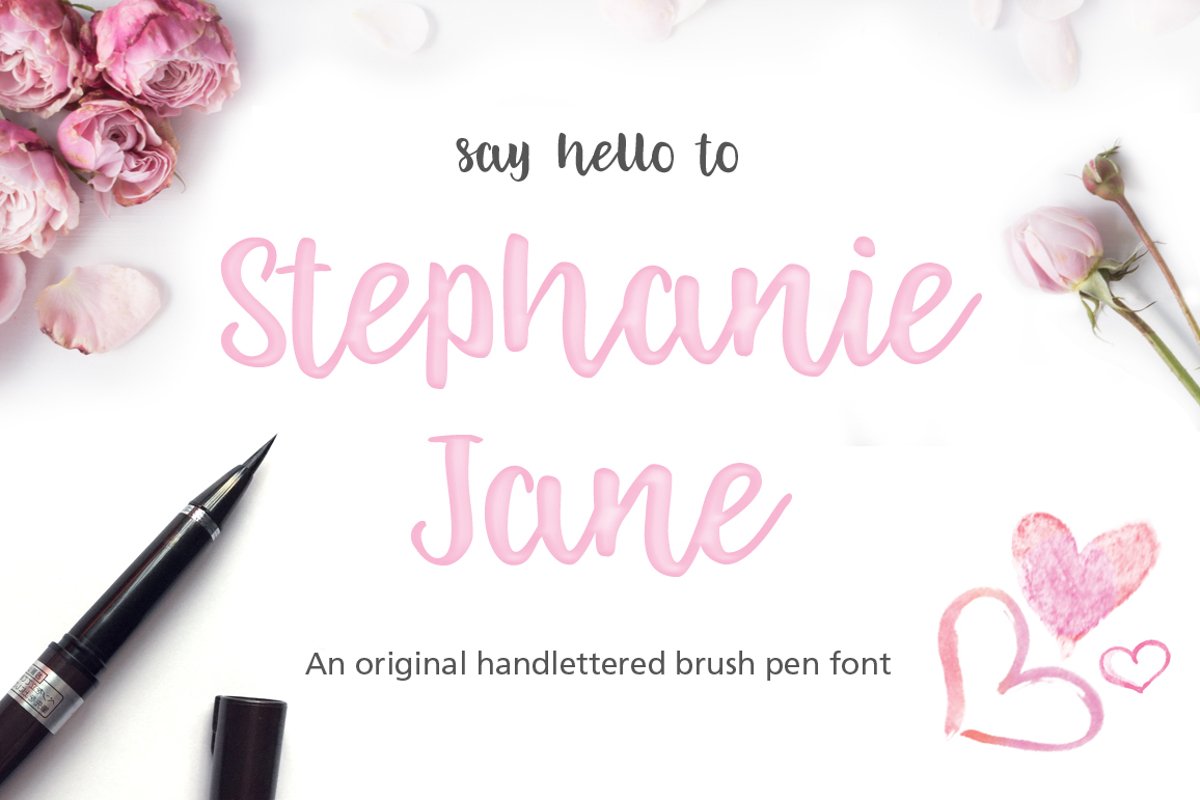
Stephanie Jane hand lettered font
Here's my latest font originally hand lettered with a brush pen.
This font can be used to create your own hand lettering effect for quotes, t-shirts, logos, etc. There is a set of alternate small caps which can be combined with lowercase letters to create quirky, unique looking words and designs.